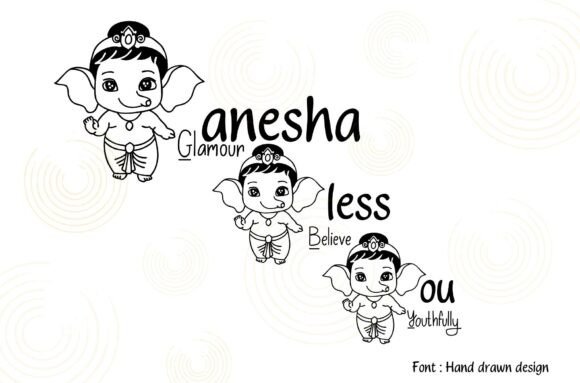
Ganesha Bless You Font: A Divine Typeface Inspired by Lord Ganesha
The world of typography is vast and diverse, with fonts ranging from sleek and modern to vintage and whimsical. Among these, the “Ganesha Bless You” font stands out as a unique, handcrafted typeface that embodies the blessings and charm of Lord Ganesha, the revered deity in Hinduism known for his wisdom, prosperity, and good fortune. This font is not just a collection of letters; it’s an artistic expression that brings the divine energy of Lord Ganesha into your designs, making them truly special.
The Inspiration Behind Ganesha Bless You Font
Lord Ganesha, with his distinctive elephant head, is a symbol of wisdom, prosperity, and good luck. He is often invoked at the beginning of new ventures and is believed to remove obstacles. The “Ganesha Bless You” font draws inspiration from this symbolism, incorporating adorable elephant illustrations for each letter. This font is a perfect blend of creativity and spirituality, making it an ideal choice for projects that require a touch of the divine.
A sample of the Ganesha Bless You Font, showcasing its unique and adorable elephant illustrations for each letter.
Features of the Ganesha Bless You Font
The “Ganesha Bless You” font is a handcrafted typeface that boasts several unique features:
- Unique Elephant Illustrations: Each letter in the font is accompanied by an adorable elephant illustration, reminiscent of Lord Ganesha’s iconic elephant head. These illustrations add a playful and spiritual touch to your designs.
- Handcrafted with Love: The font is meticulously crafted by hand, ensuring that each character is unique and filled with love and care. This handcrafted approach gives the font a personal touch that is hard to find in digital typefaces.
- Perfect for Spiritual Projects: Whether you’re working on a spiritual project, a festive design, or a personalized gift, the “Ganesha Bless You” font is an excellent choice. Its divine inspiration makes it suitable for projects that require a spiritual or cultural touch.
- Versatile and Fun: Beyond its spiritual appeal, the font is also versatile and fun to use. It can add a whimsical touch to invitations, crafts, and other creative projects, making them stand out.
Uses of the Ganesha Bless You Font
The “Ganesha Bless You” font is incredibly versatile, making it suitable for a wide range of projects and applications. Here are some ideas on how you can use this divine typeface:
Spiritual and Religious Projects
For creating spiritual texts, prayers, or any religious material that requires a touch of divinity.
Festive Designs
Perfect for designing festive greetings, especially for Ganesh Chaturthi or other Hindu celebrations.
Invitations and Cards
Add a spiritual or whimsical touch to your invitations, greeting cards, or thank you notes.
Crafts and DIY Projects
Ideal for handmade crafts, DIY projects, or personalized gifts that require a unique and spiritual touch.
Educational Materials
Suitable for creating educational materials or resources that teach about Hinduism, Lord Ganesha, or cultural studies.
Digital and Print Media
Use it in digital media like social posts, blogs, or websites, and in print media like brochures, posters, or flyers.
The “Ganesha Bless You” font is more than just a typeface; it’s a way to infuse your designs with spirituality, creativity, and a touch of the divine. Whether you’re a designer looking for a unique font, a spiritual seeker wanting to share blessings, or simply someone who appreciates the beauty of handcrafted typography, this font is sure to inspire and uplift your projects. With its adorable elephant illustrations and handcrafted charm, it’s perfect for a wide range of applications, from spiritual and festive designs to educational materials and personalized gifts.
Embrace the blessings and charm of Lord Ganesha in your designs with the “Ganesha Bless You” font. Let this divine typeface be a part of your creative journey, bringing joy, prosperity, and good fortune to you and those who see your work.